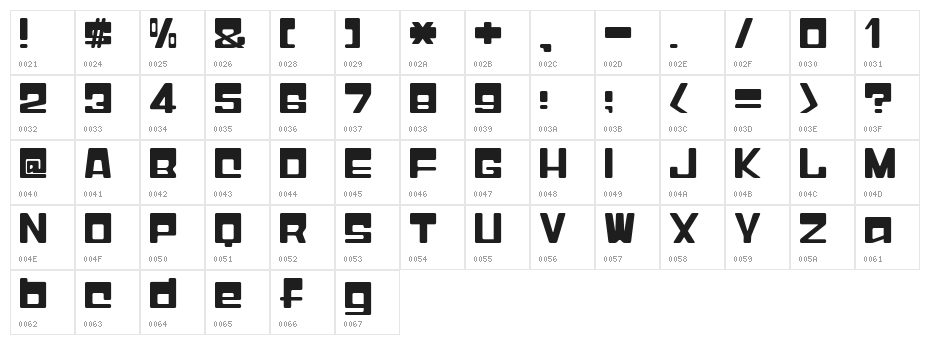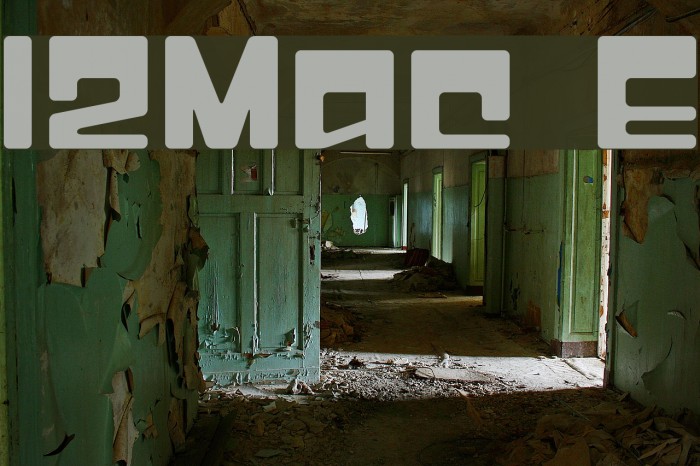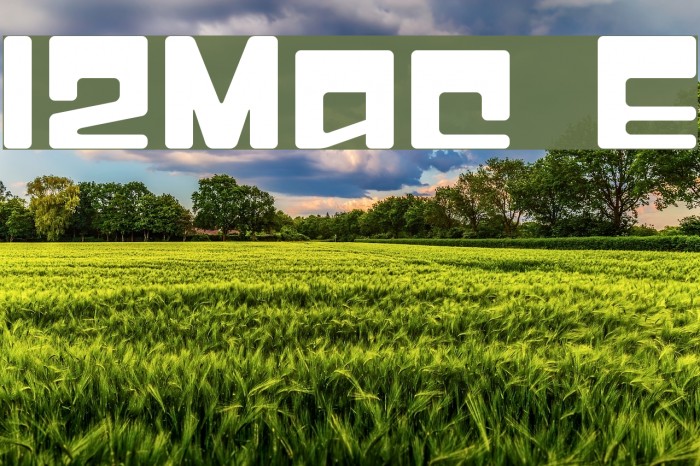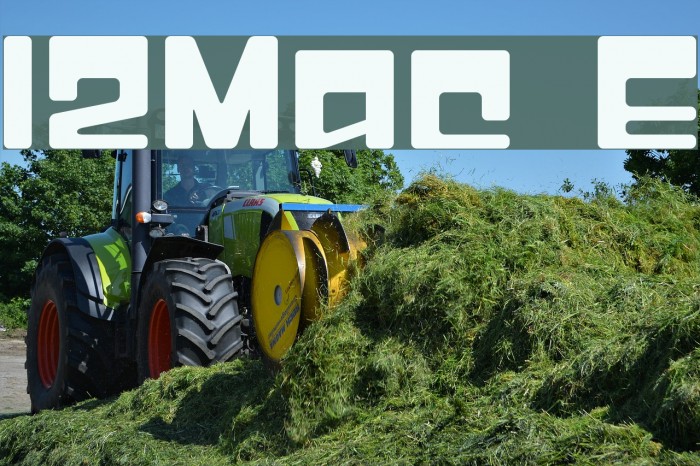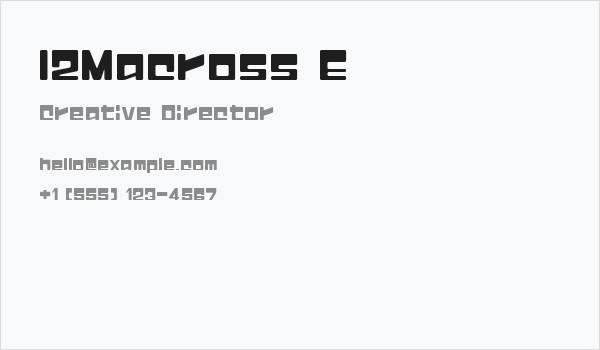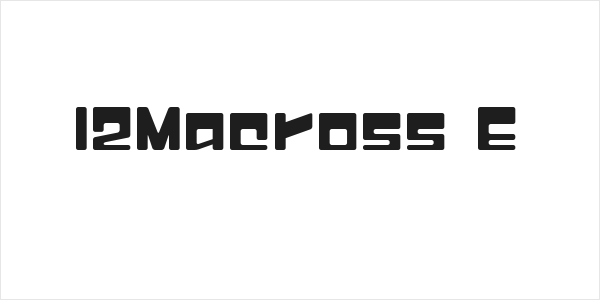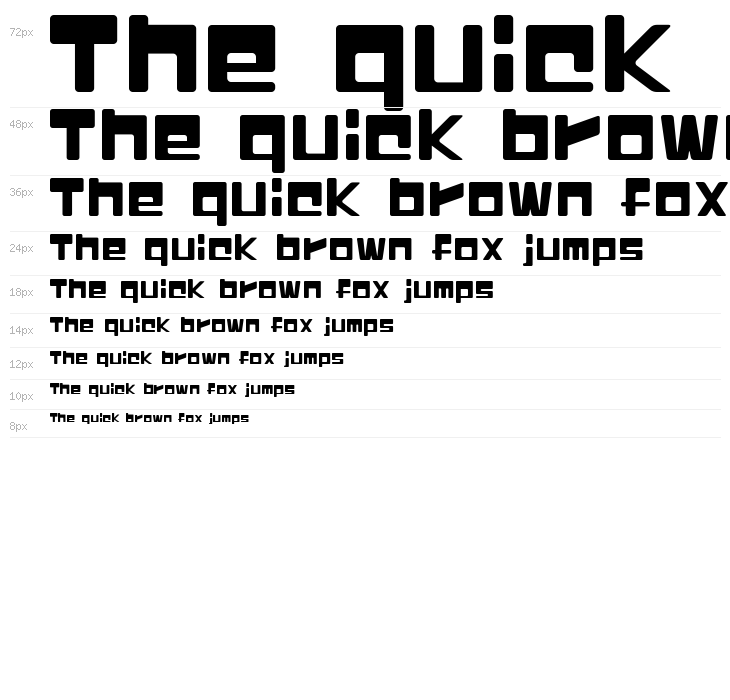
I2Macross E Font
I2Macross E Description
This font features a bold and geometric design with a futuristic flair. The characters are blocky and robust, with a consistent stroke width that gives it a strong presence. The uppercase letters have a squared-off appearance, while the lowercase letters maintain a similar structure with slightly softer edges. The numerals are equally bold and match the overall style of the alphabet. Special characters are designed to fit seamlessly with the rest of the font, maintaining the same bold and geometric aesthetic. This font is ideal for projects that require a modern and impactful look.